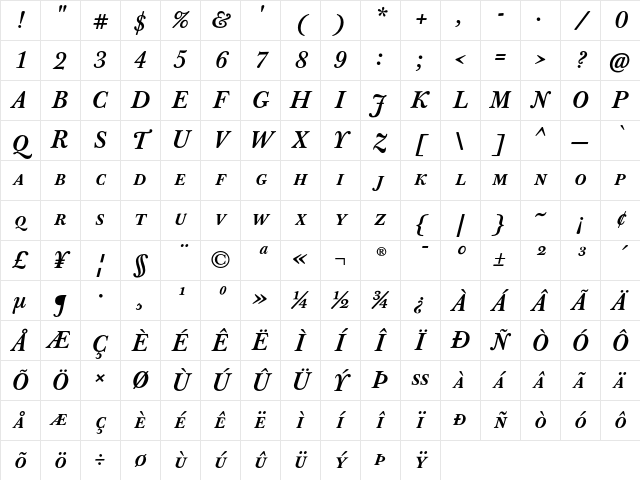
Complete J Baskerville T Caps Bold Italic glyph index. Displaying only characters natively supported by J Baskerville T Caps Bold Italic font.
J Baskerville T Caps is a composed and adaptable typeface that performs quietly and consistently across a wide range of design contexts. The slanted form adds forward momentum and visual energy. Its bold stroke weight gives it real presence on the page.
Pro Tip: Use J Baskerville T Caps for emphasis, pull quotes, and subheadings where its slanted energy can add rhythm to the layout.